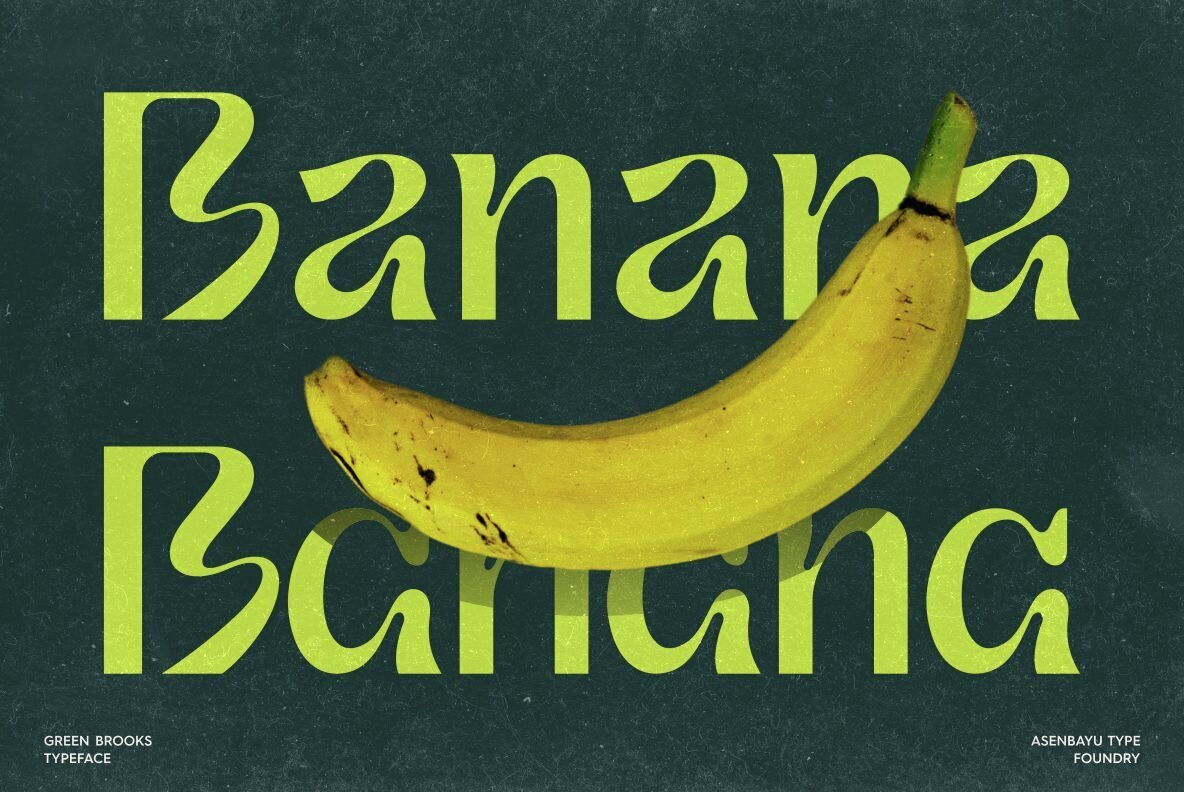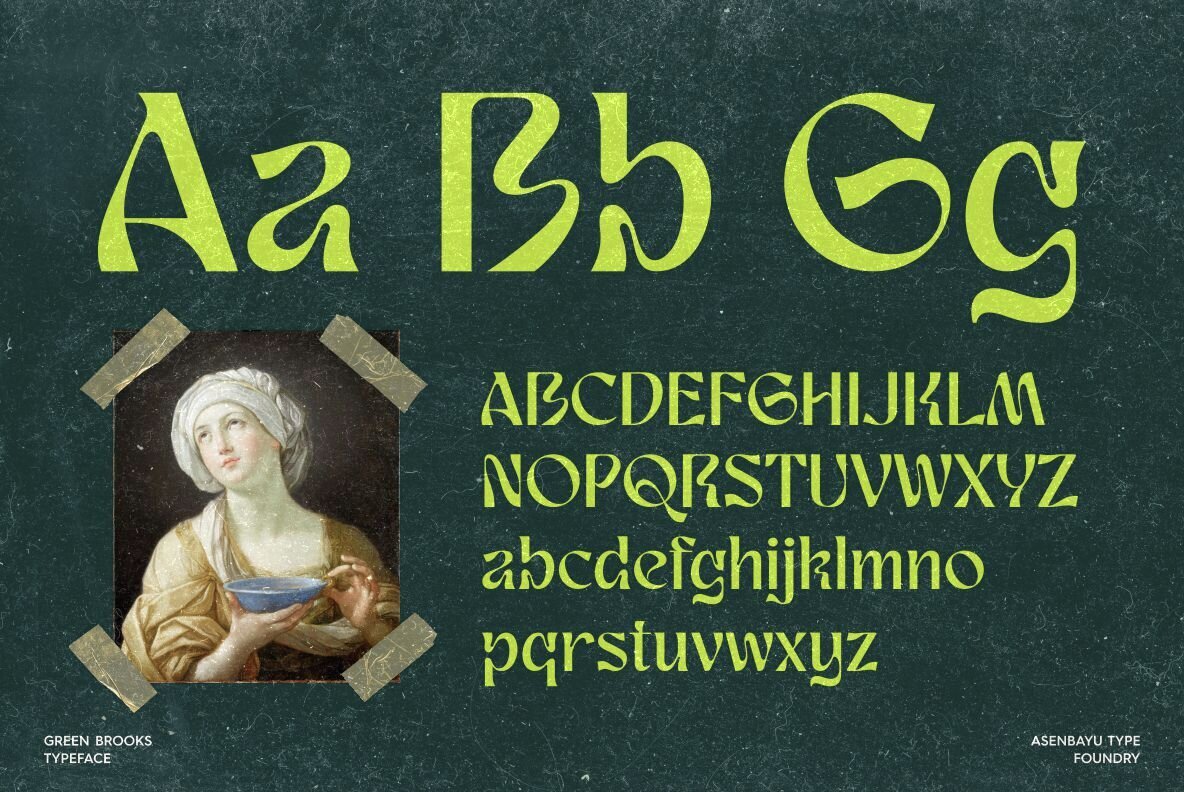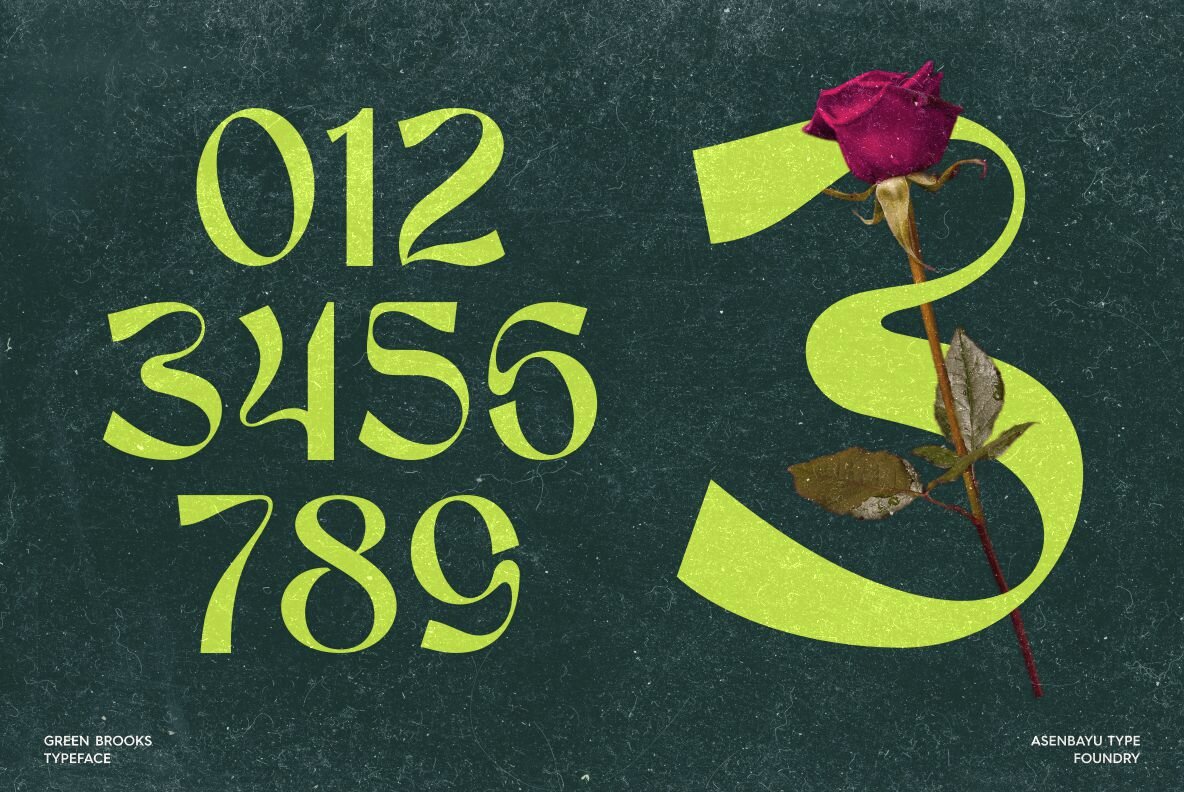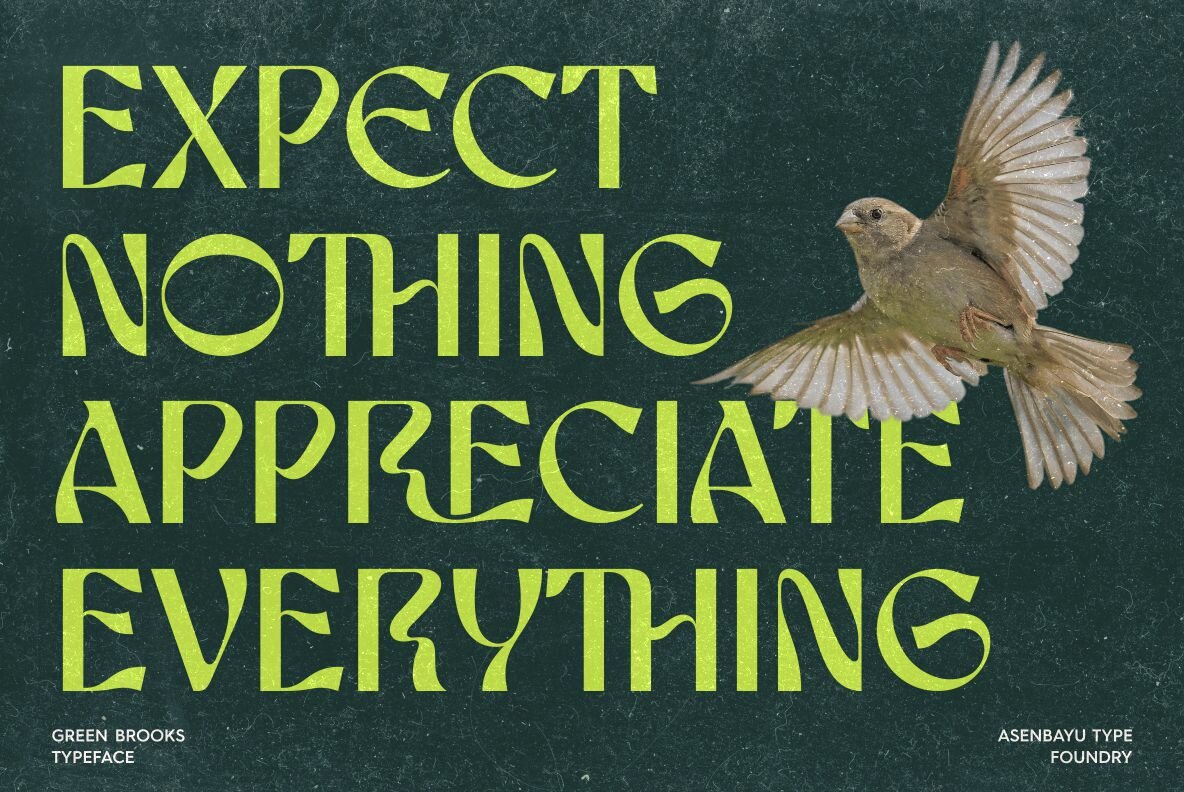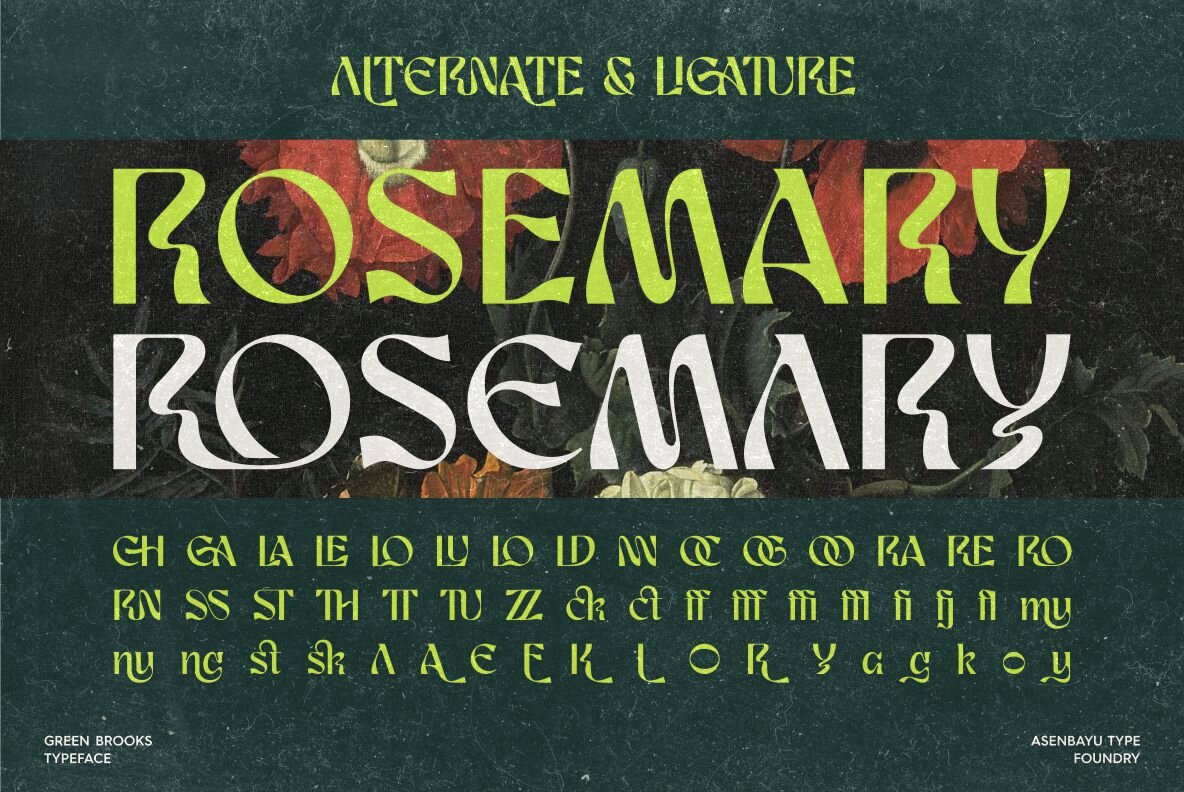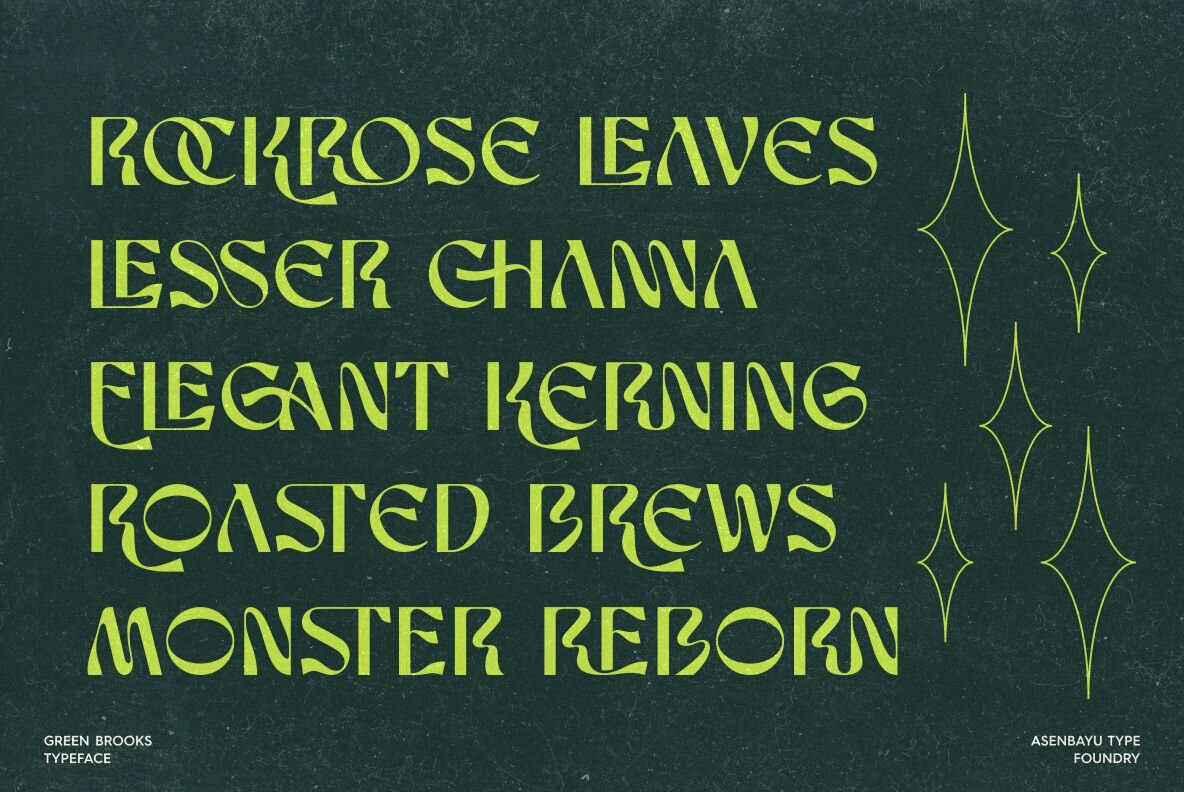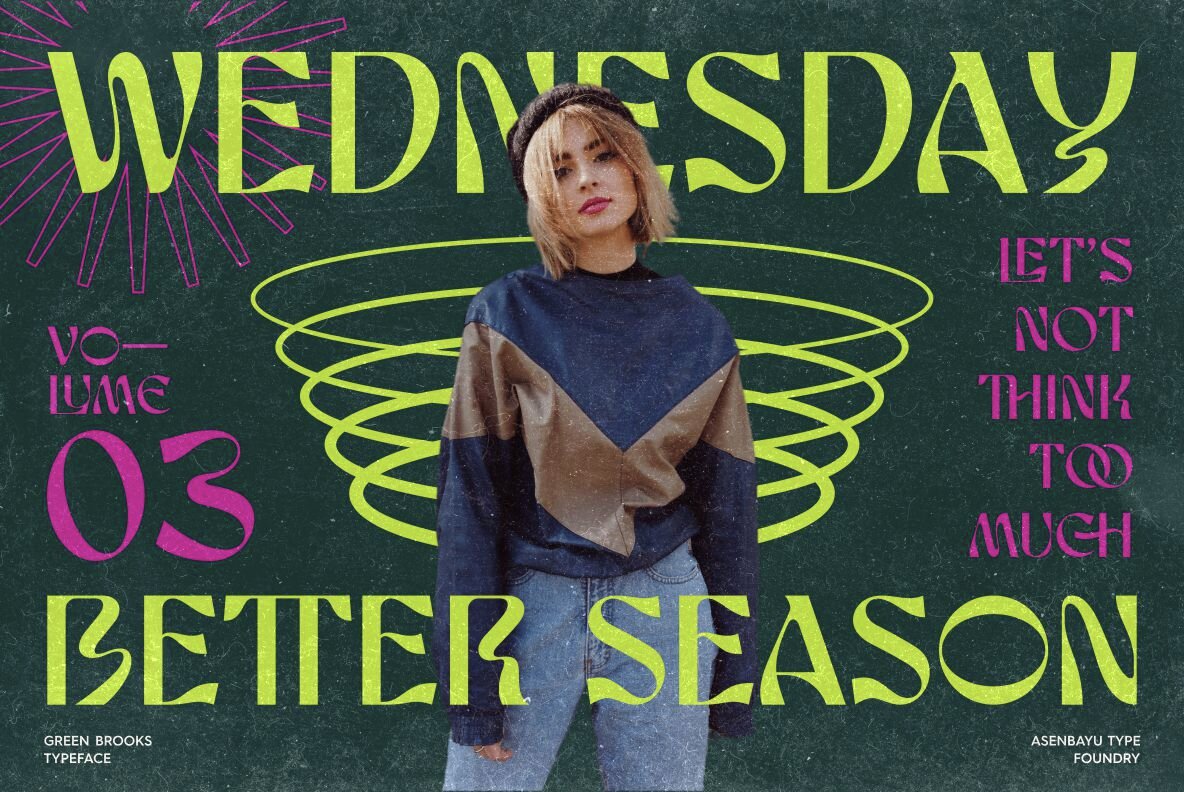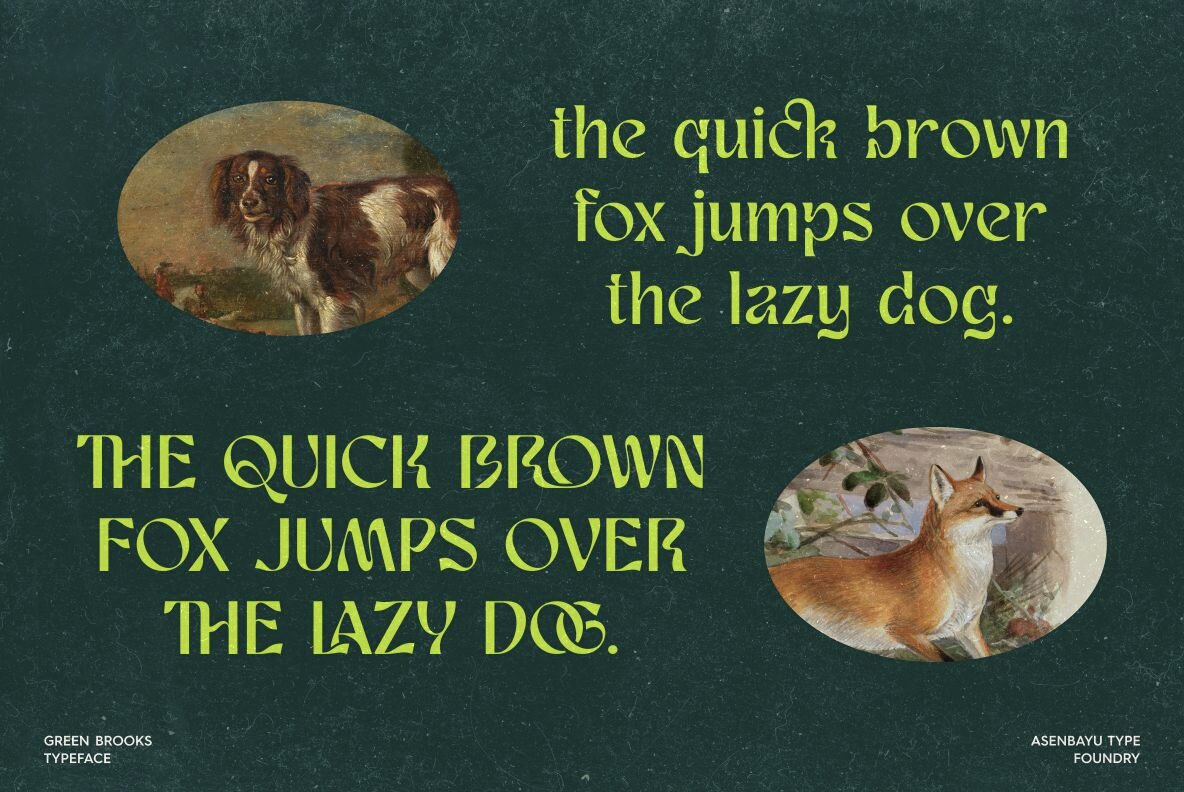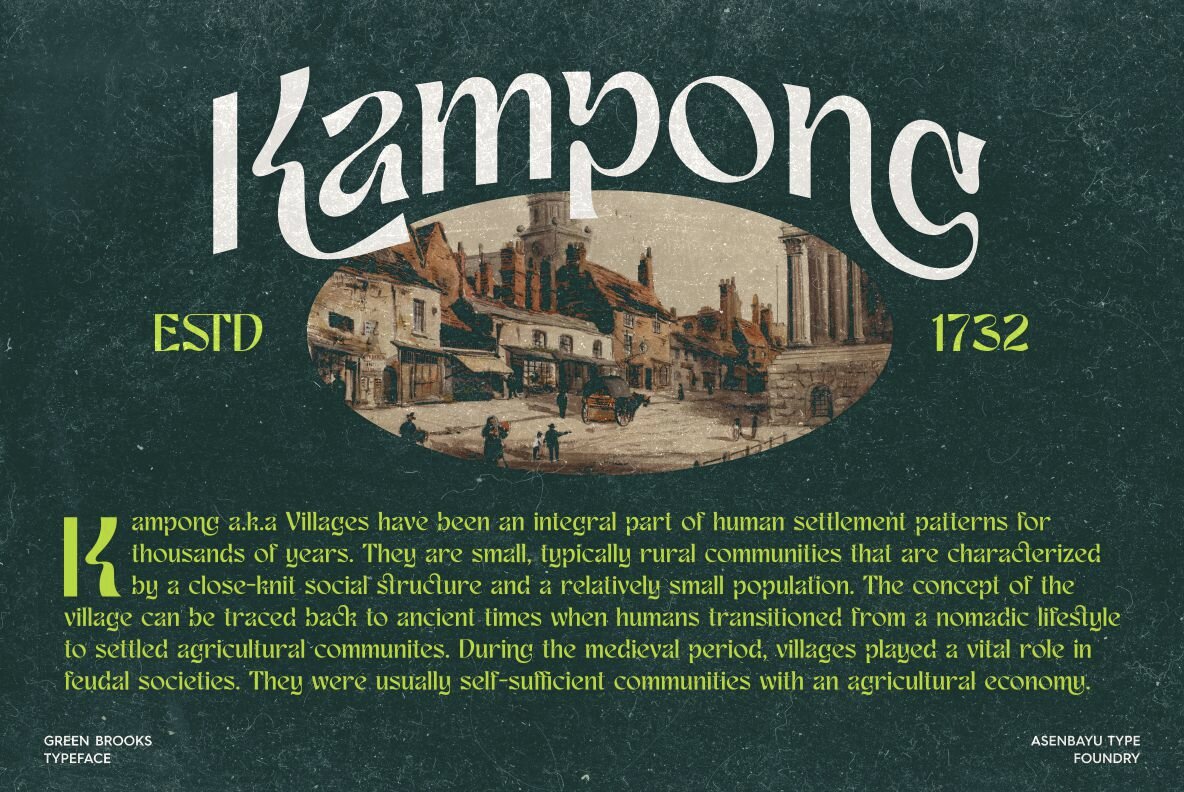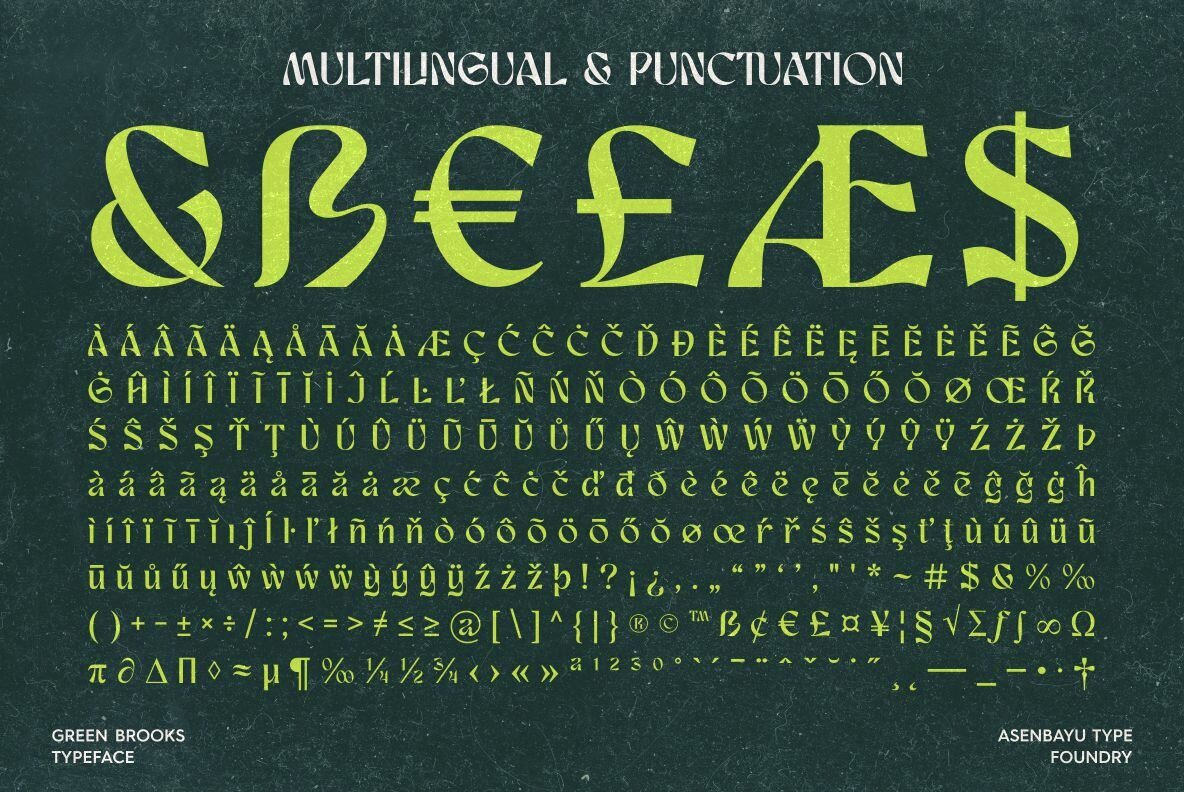
Green Brooks Font
Green Brooks
Green Brooks is a semi-serif decorative display font that blends abstract elements with elegant curves, drawing inspiration from the flowing rivers in nature. Its beautiful, flowing shapes offer a modern touch with a sans-serif outline, making it suitable for both contemporary and vintage designs. Ideal for creating eye-catching packaging labels, unique logos, striking posters, and more.Green Brooks: A Versatile Decorative Display Font